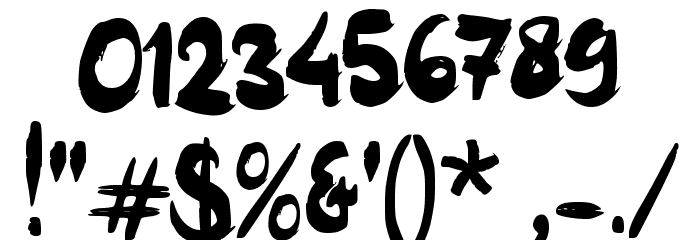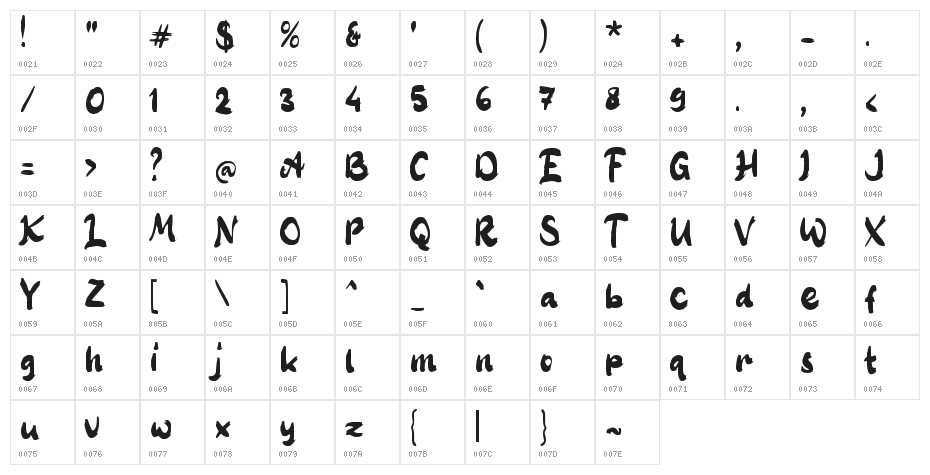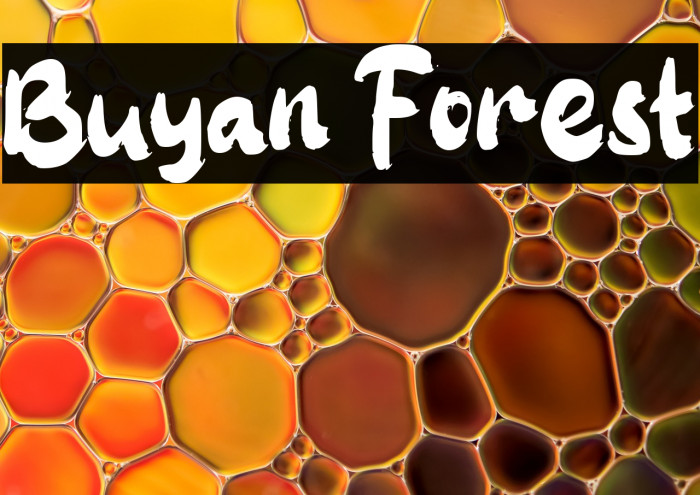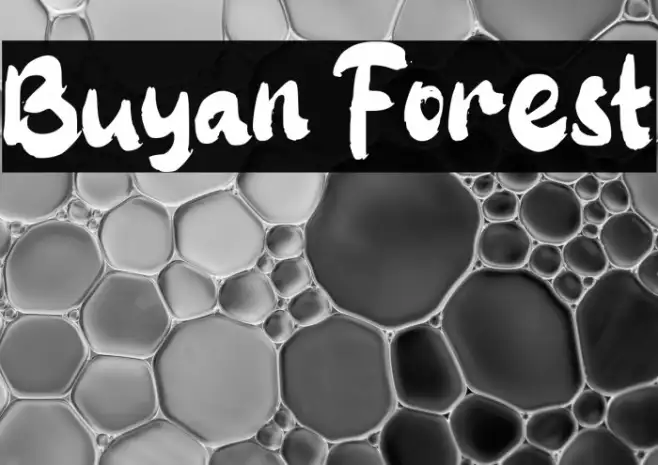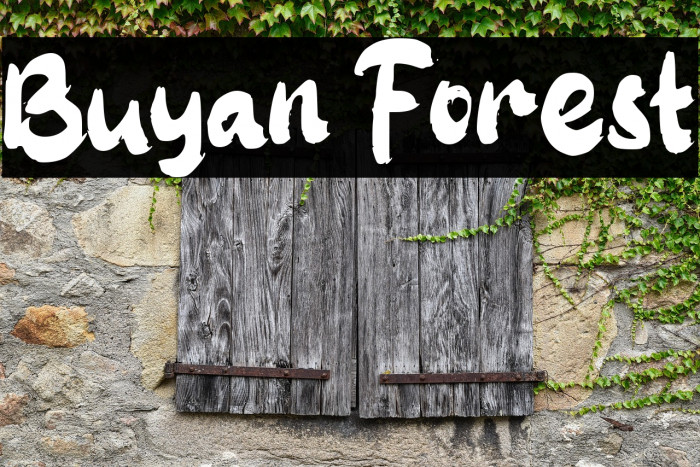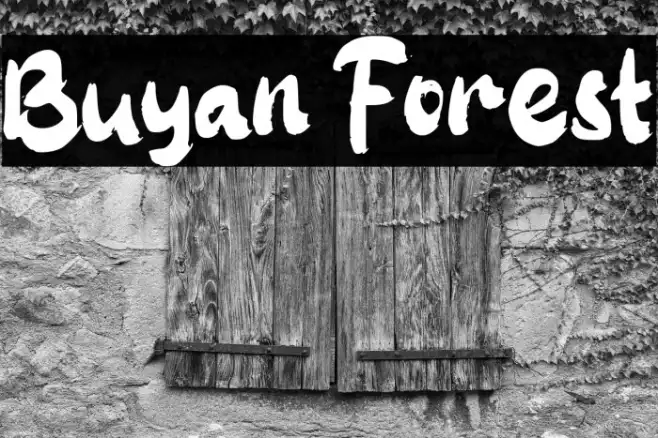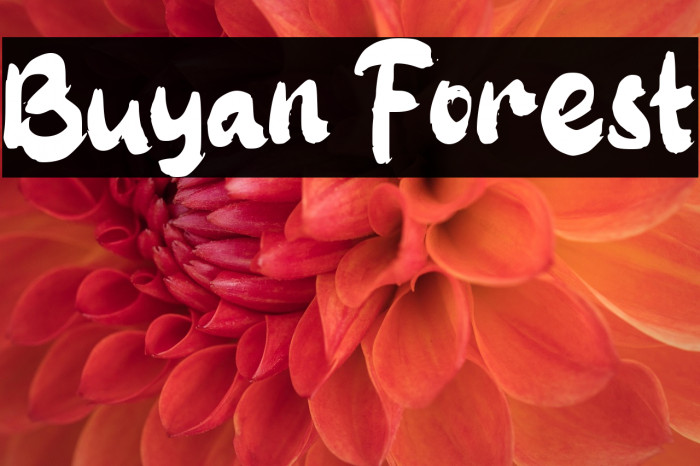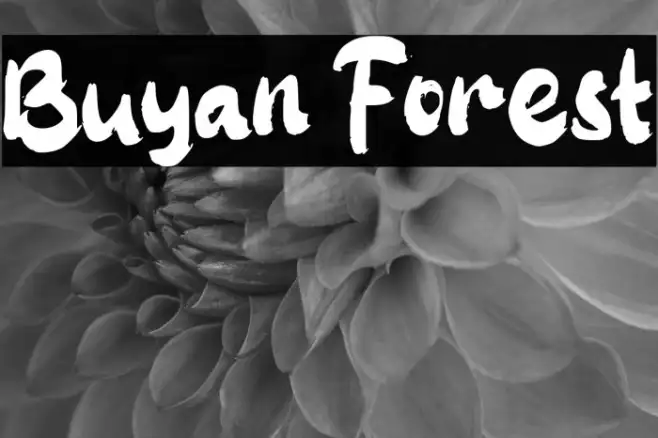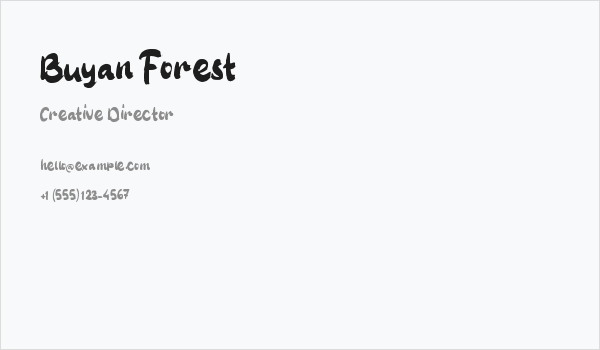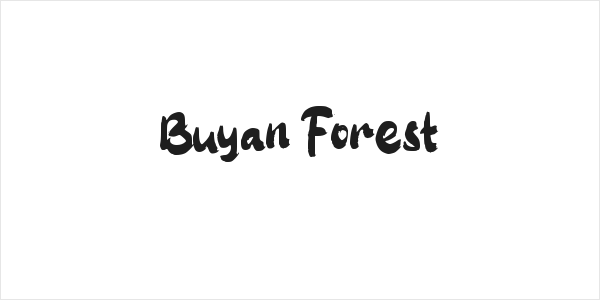
Buyan Forest Font
Buyan Forest Description
This font features a bold and expressive handwritten style, characterized by its thick strokes and dynamic curves. The letters exhibit a playful and energetic appearance, with a slightly irregular baseline that adds to its casual charm. The uppercase and lowercase letters maintain a consistent style, with the uppercase being slightly more structured. The numbers and special characters follow the same bold and lively design, ensuring a cohesive look across all characters. This font's brush-like texture gives it a natural and organic feel, making it suitable for projects that require a personal touch.
| Proposed Projects | Ideal for greeting cards, posters, branding, and any project needing a personal, artistic touch. |